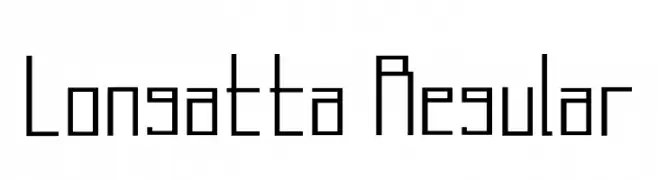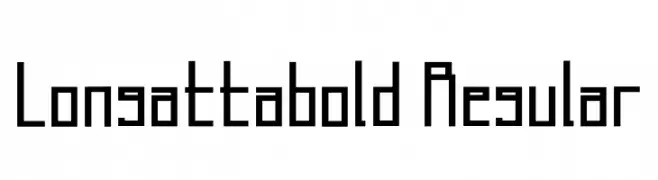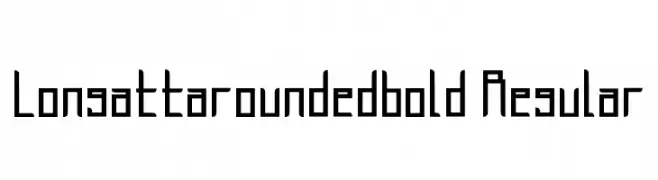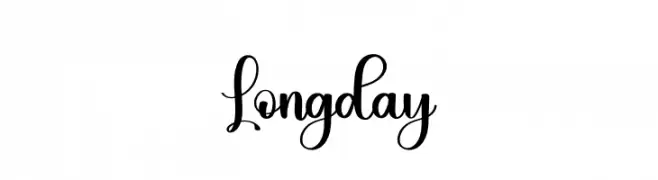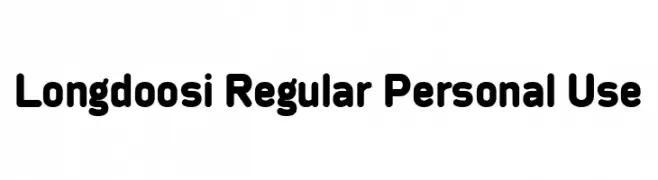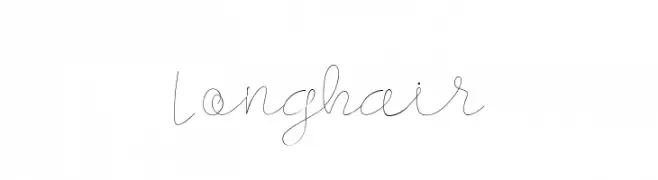
An elegant, medieval-inspired serif font with sharp, angular serifs and decorative elements.
A geometric, modern font with tall, narrow letterforms and consistent stroke width.
A geometric, modern font with bold weight and sharp angles.
A bold, geometric font with rounded corners and a modern aesthetic.
Elegant and playful script font.
A bold, decorative font with intricate details and vintage flair.
A delicate, flowing script font with thin lines and graceful curves.
A playful and energetic handwritten script font with bold, smooth strokes.